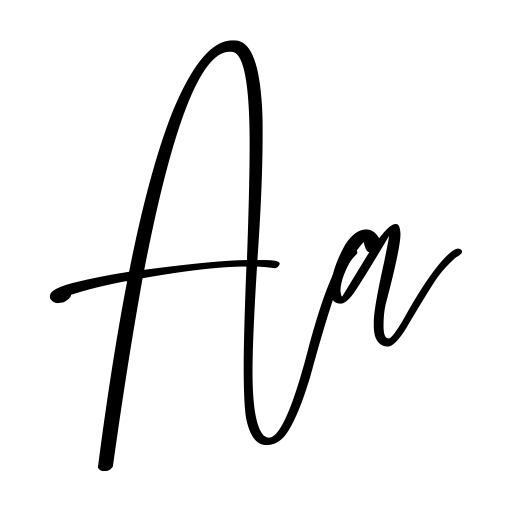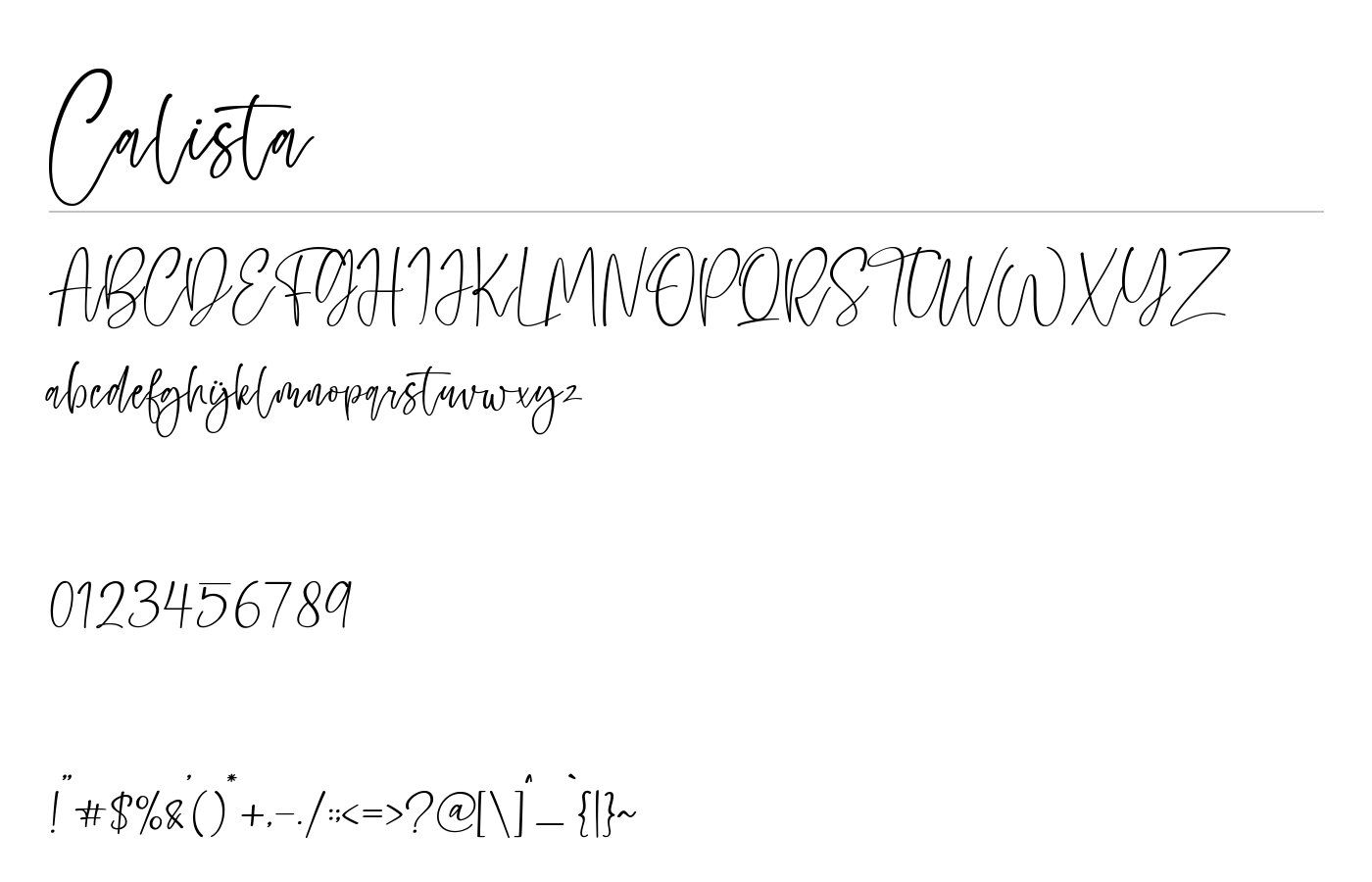
Calista is a delicate and elegant handwritten script font characterized by its thin, flowing strokes and natural, casual charm. Its slender letterforms and subtle variations in line thickness give it a graceful, personal touch, making it perfect for invitations, branding, and any design that seeks a warm, stylish, and approachable feel. This font works well for creative projects looking to convey sophistication with a relaxed, modern flair.
Calista Font
About Calista Font